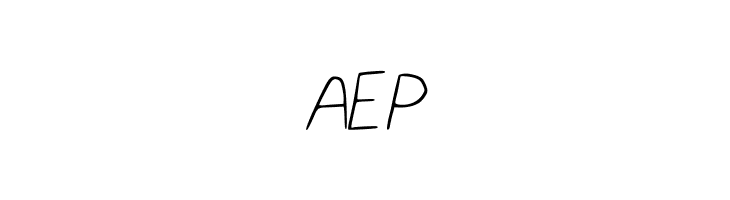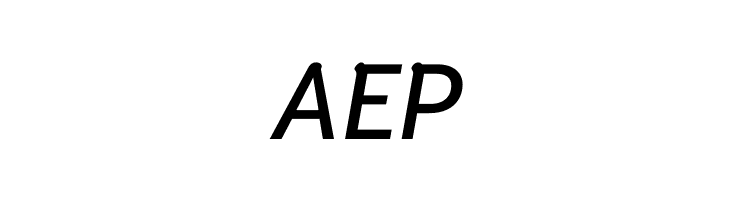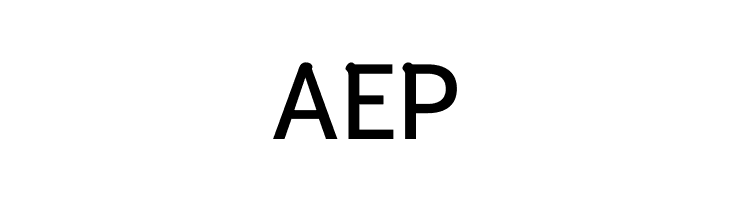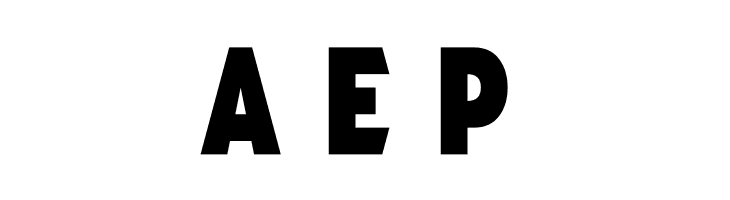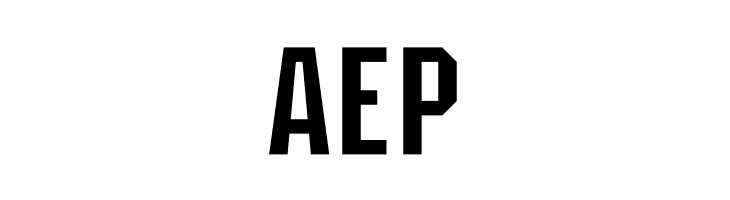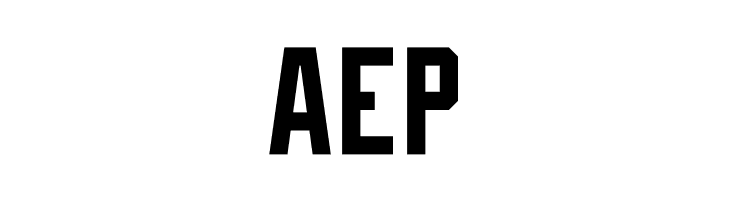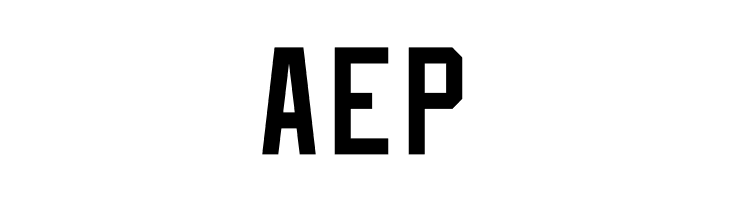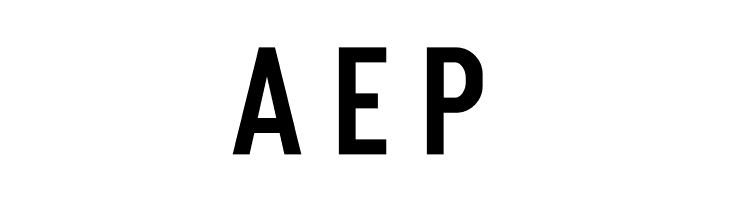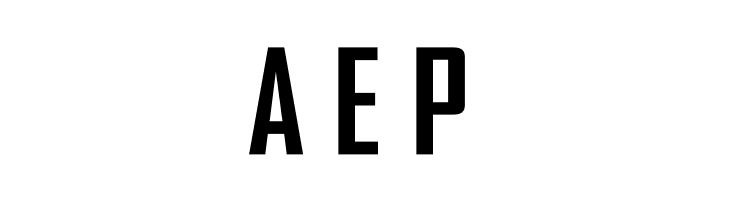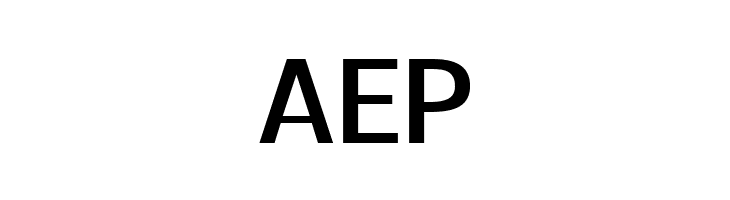
A bold, artistic font with high contrast and playful curves.
A lively, handwritten font with dynamic and playful strokes.
A casual, handwritten-style font with a playful and personal touch.
A casual, handwritten font with fluid, slightly slanted characters.
A clean, geometric font with uniform stroke width and minimalistic style.
A modern, geometric font with elegant curves and clean lines.
A playful, bold font with a hand-drawn, whimsical style.
A bold, hand-drawn font with dynamic and irregular strokes, exuding energy and creativity.
A flowing, cursive script with elegant, connected characters and dynamic stroke variations.
A casual, handwritten font with smooth, slightly slanted strokes.
A bold, hand-drawn font with a sketch-like texture and playful style.
A clean, modern typeface with rounded edges and uniform stroke width.
A modern, italic sans-serif font with medium weight and smooth curves.
A playful, bold, hand-drawn font with a casual and friendly appearance.
A modern sans-serif font with balanced proportions and smooth curves.